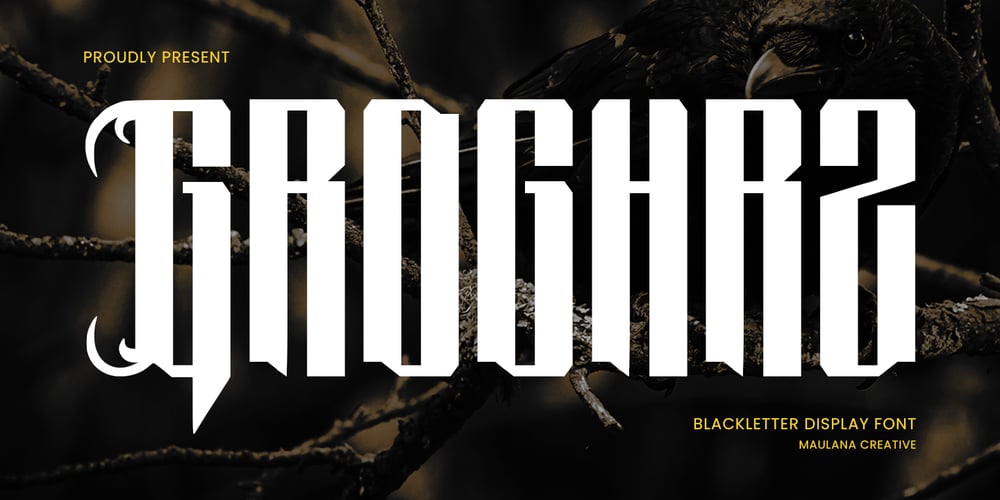
MC Groghrz Font Family was designed by Gilang Maulana and published by Maulana Creative. MC Groghrz contains 1 styles and family package options. Give your designs an authentic black and old feel. “Groghrz Blackletter DIsplay Horror Font” is perfectly suited to display, stationery, logo, typography quotes, magazine or book covers, website headers, clothing, branding, packaging design, and more.Many Thanks,Maulana Creative